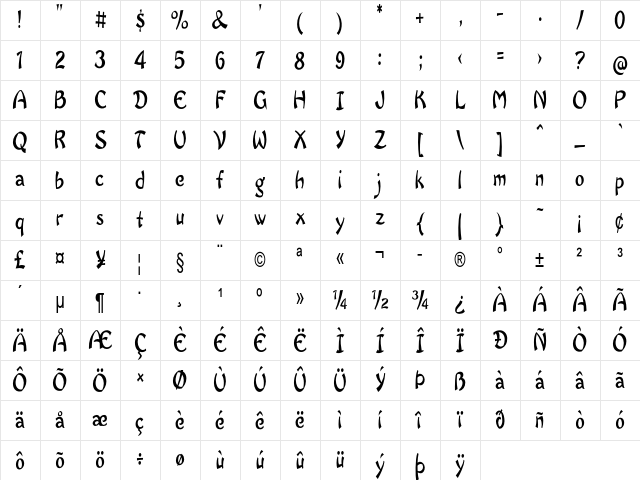
Saturday Cartoons Condensed Regular
Style: Condensed Regular
Saturday Cartoons Family
Saturday Cartoons Condensed Regular
Design Context for Saturday Cartoons
Saturday Cartoons has an approachable, lighthearted character - its loose, expressive forms are well-suited to children's content, casual branding, and fun-first design.
Font Pairing: Pairs well with a rounded or humanist sans for body copy, maintaining the friendly tone without relying on Saturday Cartoons to carry extended reading.
Pro Tip: Use Saturday Cartoons at larger display sizes where its expressive character can land. Pair with a clean, simple sans for body copy to maintain readability.